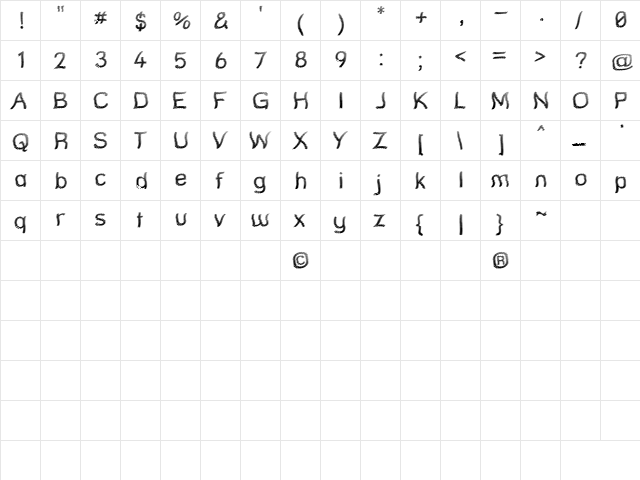
Street Quaked Regular
Design Context for Street Quaked Typeface
Street Quaked is a composed and adaptable typeface that performs quietly and consistently across a wide range of design contexts.
Pro Tip: Use Street Quaked in both headline and body roles to test its range before committing to a single application.